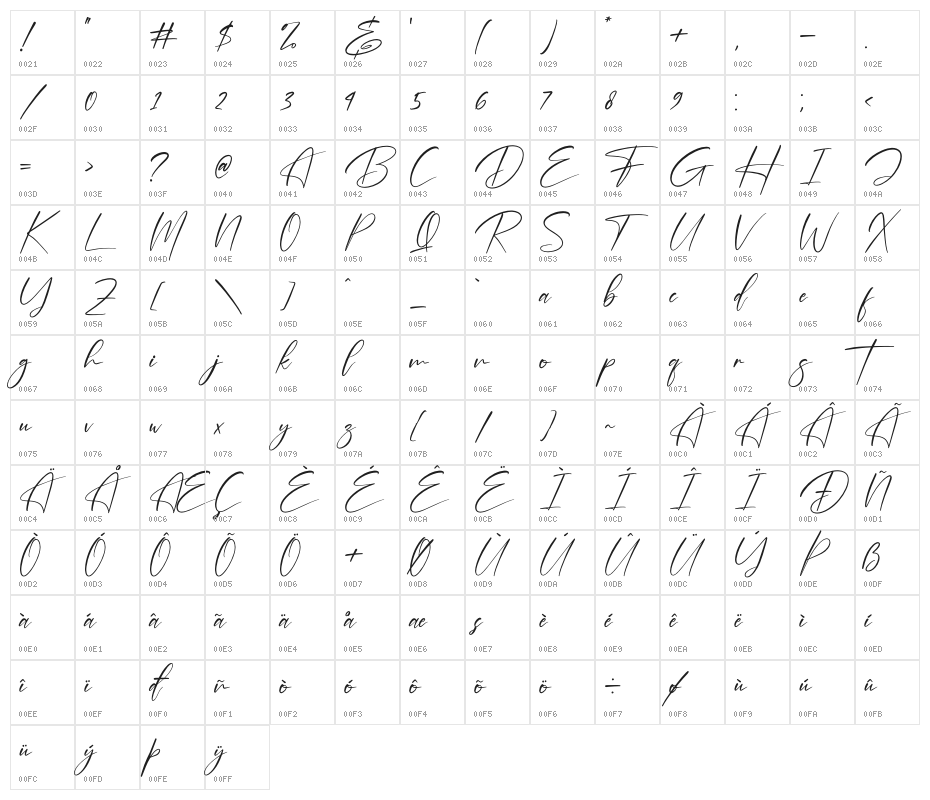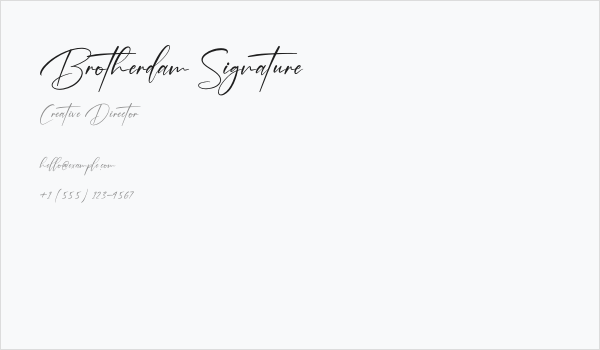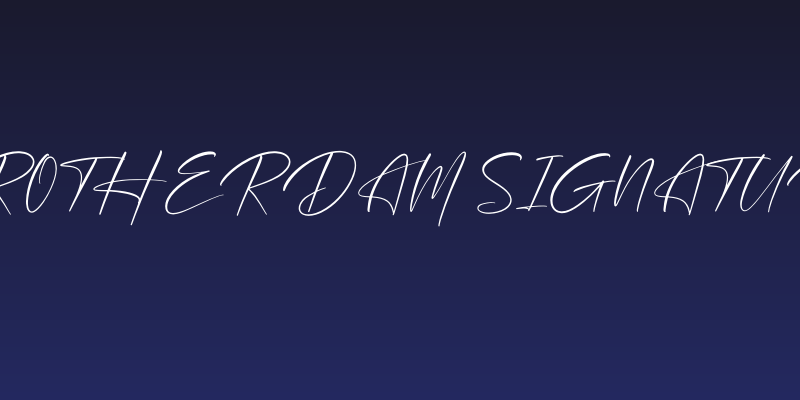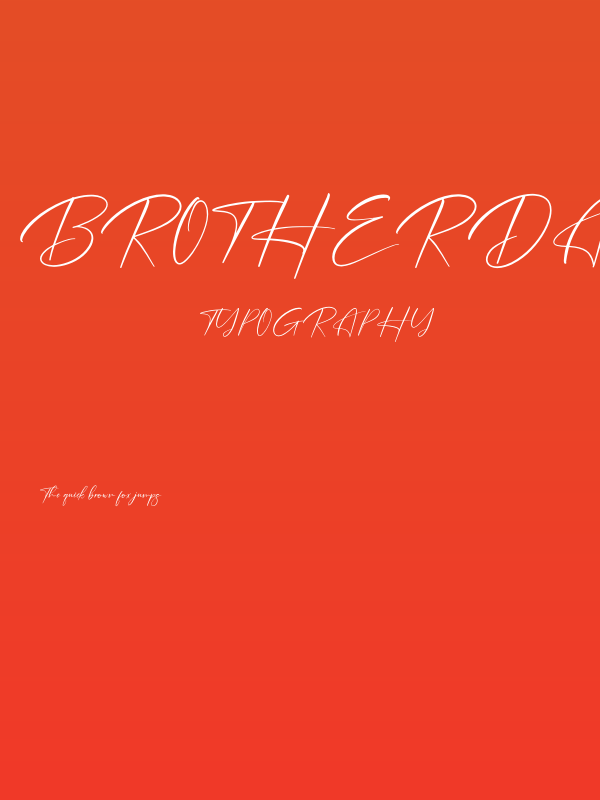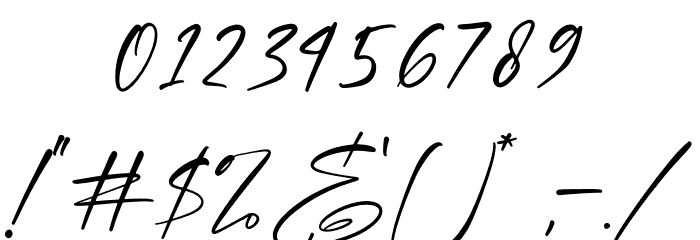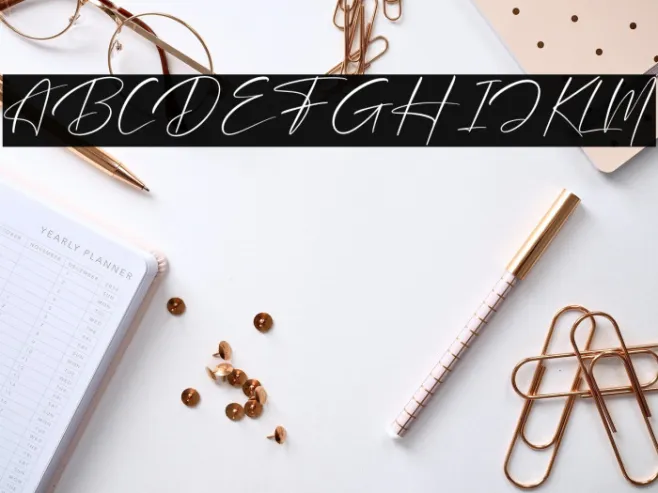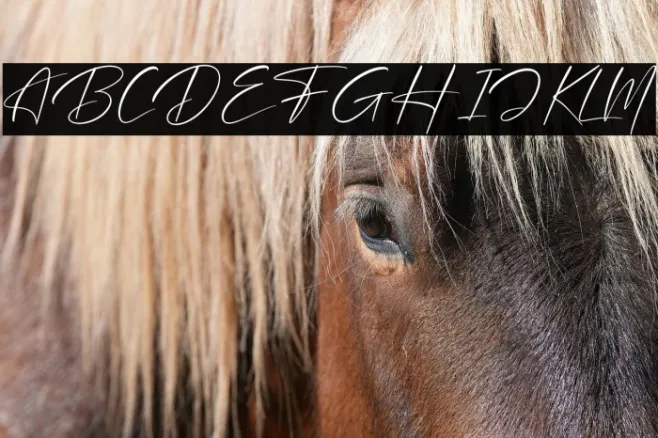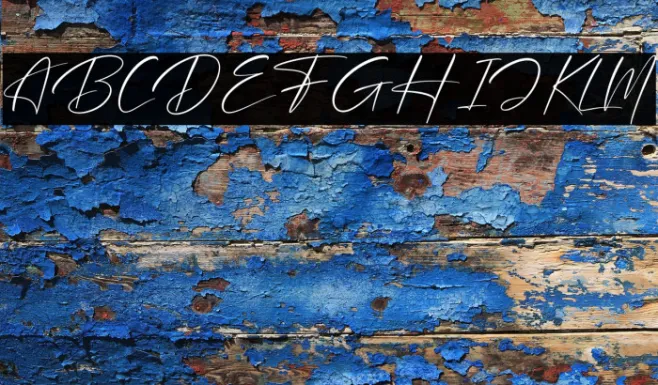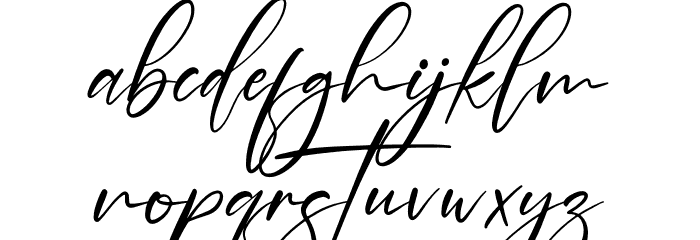
Brotherdam Signature Font
Brotherdam Signature Description
This elegant script font exudes a sense of sophistication and fluidity, characterized by its flowing, cursive strokes and graceful curves. The uppercase letters are tall and slender, with a slight slant that adds a dynamic feel. The lowercase letters are more compact, maintaining a consistent rhythm and balance throughout. The numbers and special characters are designed with the same attention to detail, ensuring a cohesive look across all elements. This font's delicate lines and artistic flair make it perfect for projects that require a touch of elegance and personality.
| Overall Style | Elegant |
| Use Case | Logos, Invitations, Branding |
| Proposed Projects | Ideal for wedding invitations, branding, signature logos, and elegant stationery. |